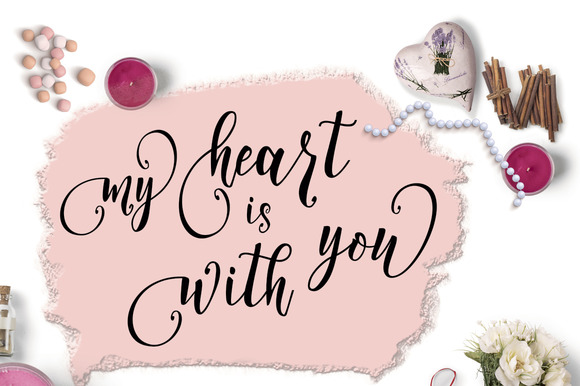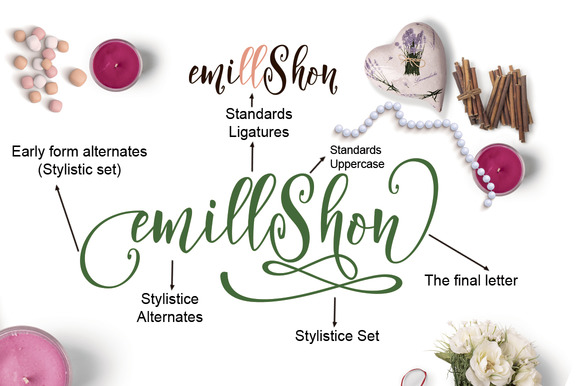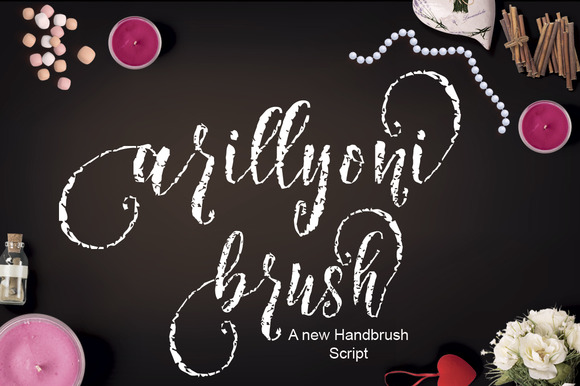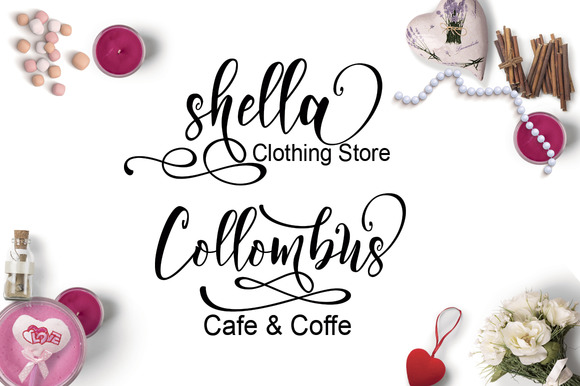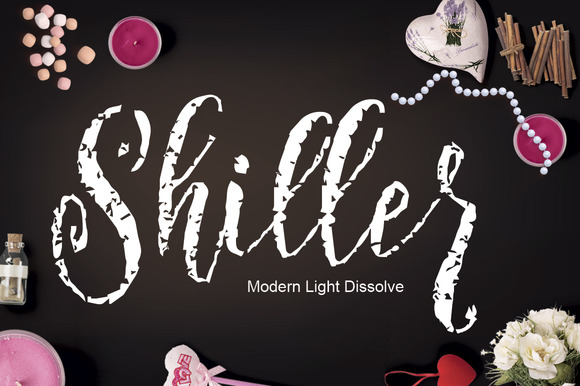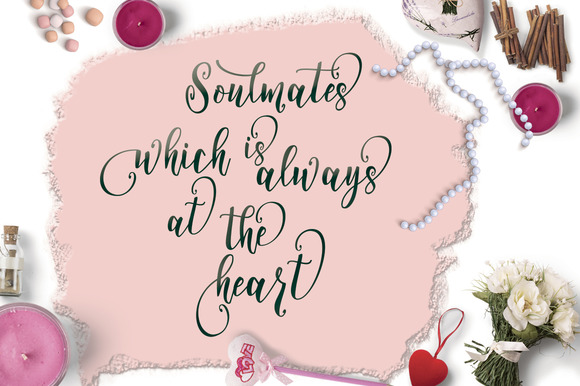
The Art of Handwritten Typography: Unveiling the Arillyoni Script Font
Do you remember the feeling of scribbling notes by hand, the sound of your pen scratching against paper, and the satisfaction of creating something unique? That’s the essence of handwritten typography, and it’s exactly what the Arillyoni Script Font embodies. This stunning font is designed to bring a touch of personality to your designs, from beautiful quotes to elegant invitations.
As a designer, you understand the importance of choosing the right font to convey your message. That’s where the Arillyoni Script Font comes in – a versatile and expressive font that’s perfect for adding a personal touch to your projects. With its 439 glyphs, you’ll have endless possibilities to create stunning visual effects and make your designs stand out. Whether you’re a seasoned designer or just starting out, the Arillyoni Script Font is an invaluable addition to your toolkit.
Key Features of Arillyoni Script Font
- Font Family: Arillyoni Script
- Unique Characteristics: Handwritten, cursive, and script font with a personal, elegant feel; suitable for invitations, signatures, and creative projects
Arillyoni Script Font Review
Overall, I’m quite impressed with the Arillyoni Script Font. Here are a few things that work well: ✨
- Unique Character: Arillyoni Script Font brings a distinctive, elegant touch to your designs, making it perfect for high-end branding and marketing materials.
- Legibility: The font is surprisingly readable, even at smaller font sizes, which is essential for effective communication.
- Customization: While the font itself is beautiful, it’s not highly customizable, which might be a drawback for designers who prefer to fine-tune their fonts to suit their specific design needs.
Overall, I’d say the Arillyoni Script Font is a solid choice for designers who need a high-quality, elegant font for their projects. However, it’s essential to weigh the pros and cons before making a decision.
Use the Arillyoni Script Font for:
2. Branding and logo design.
3. Handwritten-style typography and quotes.
4. Adding a touch of elegance and sophistication to your designs.
What is the font size range of Arillyoni Script?
Arillyoni Script is designed to be used at a wide range of font sizes, from 8pt to 72pt. However, it’s recommended to use it at font sizes between 12pt and 48pt to ensure optimal readability and legibility.